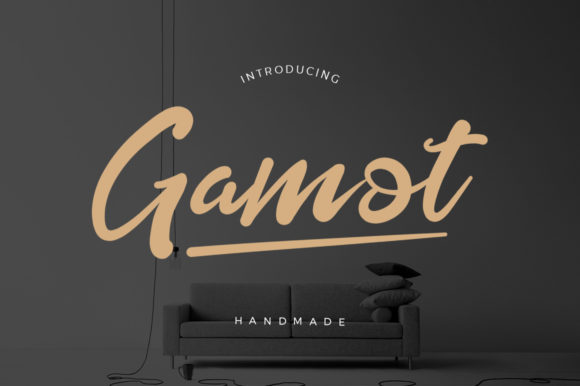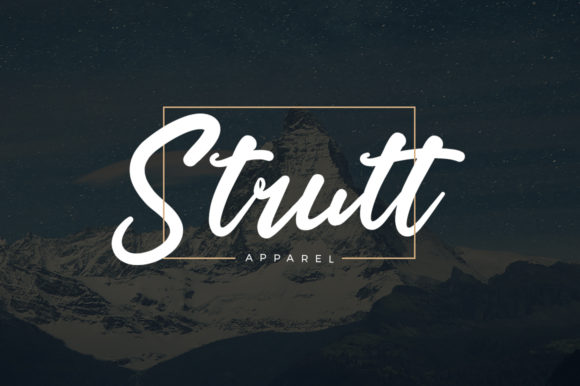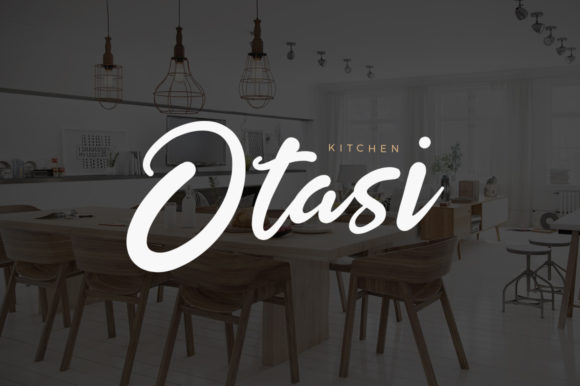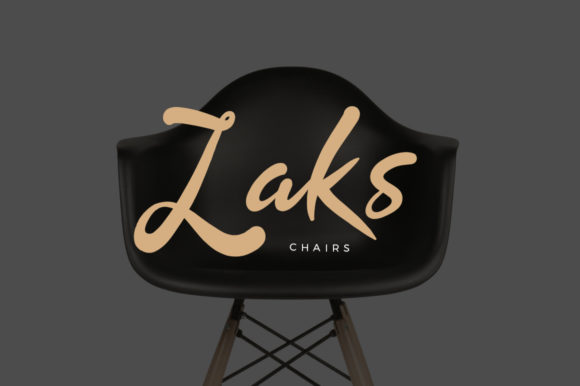
About Gamot Font
Gamot is a sweet and flowing handwritten font, created with the help of a lovely brush pen. It will add an incredibly joyful touch to your designs. Add it to each of your creative ideas and notice how it makes them stand out!